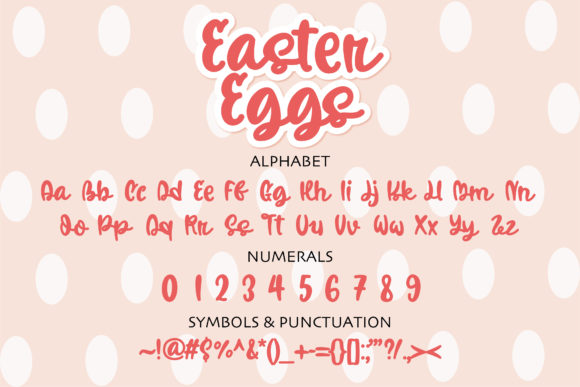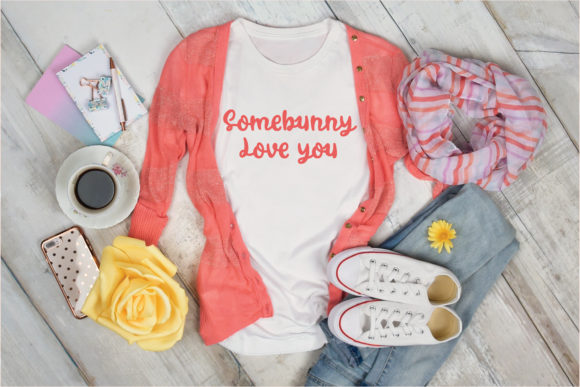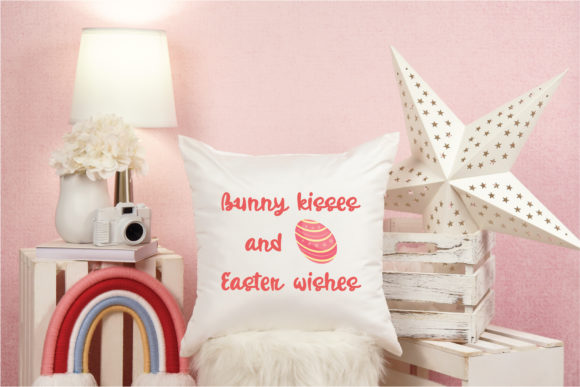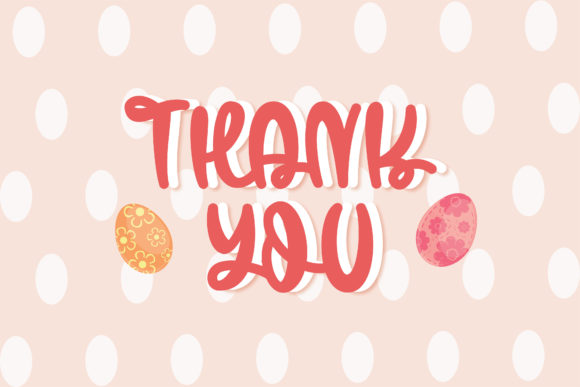
Easter Eggs Font: A Cute and Flexible Script for Your Designs
Are you looking for a font that can add a touch of whimsy and playfulness to your designs? Look no further than the Easter Eggs Font! This beautiful script handwritten font is perfect for designers and crafters who want to create unique and eye-catching projects. In this article, we’ll take a closer look at the Easter Eggs Font, its features, and how you can use it to take your designs to the next level.
What is Easter Eggs Font?
Easter Eggs Font is a cute and flexible script handwritten font that is perfect for a wide range of designs. Its natural and unique style makes it incredibly fitting for projects such as greeting cards, invitations, posters, and more. The font is designed to be highly versatile, allowing you to use it for both personal and commercial projects.
Features of Easter Eggs Font
So, what makes Easter Eggs Font so special? Here are just a few of its key features:
- Cute and Playful Style: The Easter Eggs Font has a naturally playful and whimsical style that is perfect for designs that require a touch of fun and personality.
- Flexible and Versatile: The font is highly flexible and can be used for a wide range of designs, from formal to informal projects.
- Handwritten Script: The Easter Eggs Font is a handwritten script font, which gives it a unique and personal touch.
- Easy to Read: Despite its playful style, the Easter Eggs Font is easy to read and can be used for both headings and body text.
How to Use Easter Eggs Font in Your Designs
Now that we’ve covered the features of Easter Eggs Font, let’s take a look at how you can use it in your designs. Here are a few ideas to get you started:
- Greeting Cards: The Easter Eggs Font is perfect for creating cute and playful greeting cards for special occasions such as Easter, birthdays, and holidays.
- Invitations: Use the Easter Eggs Font to create unique and eye-catching invitations for parties, weddings, and other events.
- Posters and Flyers: The font is also great for creating posters and flyers for events, promotions, and products.
- Digital Projects: The Easter Eggs Font can also be used for digital projects such as social media graphics, blog posts, and email newsletters.
Tips for Getting the Most Out of Easter Eggs Font
To get the most out of the Easter Eggs Font, here are a few tips to keep in mind:
- Pair it with Other Fonts: The Easter Eggs Font can be paired with other fonts to create a unique and interesting contrast.
- Use it for Headings and Titles: The font is perfect for headings and titles, but can also be used for body text for a more playful look.
| Font Name | Easter Eggs Font |
| Author | GoodMoodType |
In conclusion, the Easter Eggs Font is a beautiful and versatile script handwritten font that is perfect for designers and crafters who want to add a touch of whimsy and playfulness to their designs. With its natural and unique style, it’s incredibly fitting for a wide range of projects. Whether you’re creating greeting cards, invitations, posters, or digital projects, the Easter Eggs Font is sure to bring a smile to your audience’s face. So why not give it a try and see what amazing designs you can create?